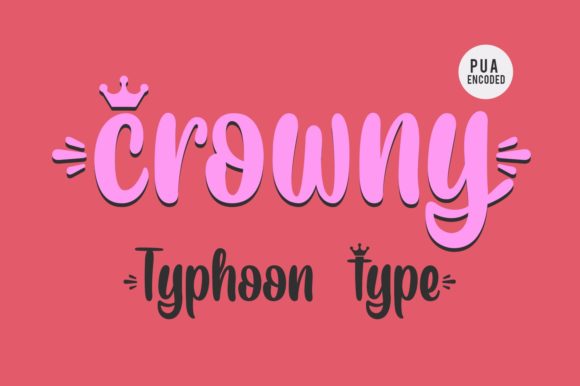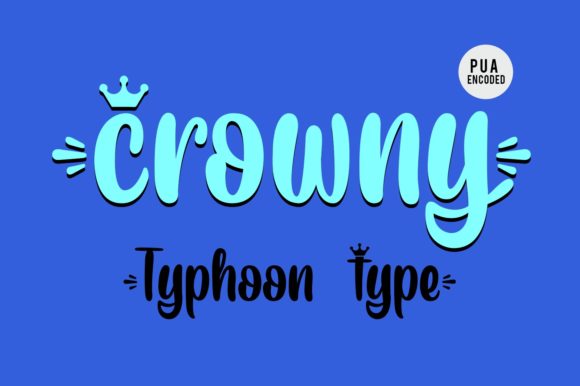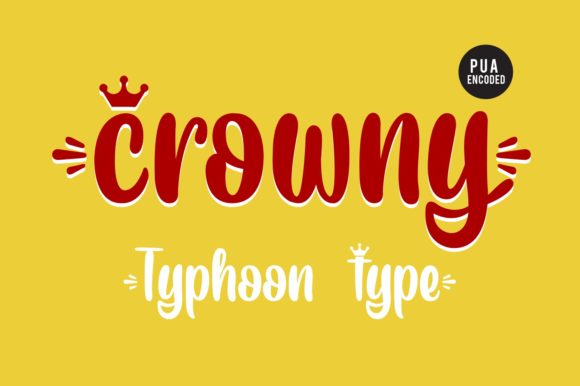
Crowny Font: Elevate Your Designs with a Fun and Versatile Display Font
Are you tired of using the same old fonts in your designs? Look no further than Crowny Font, a fun and versatile display font that’s perfect for adding a touch of personality to your projects. Whether you’re a designer, crafter, or DIY enthusiast, Crowny Font is a great addition to your font library.
What is Crowny Font?
Crowny Font is a modern display font that’s designed to make your designs stand out. Its unique and playful style makes it perfect for a wide range of applications, from logos and advertising to product packaging, clothing, social media, and greeting cards.
One of the best things about Crowny Font is its versatility. It’s a highly decorative font that can add a touch of whimsy and fun to any design. Whether you’re creating a bold and eye-catching logo or a beautiful and intricate greeting card, Crowny Font is the perfect choice.
Key Features of Crowny Font
- PUA Encoded: Crowny Font is PUA (Private Use Area) encoded, which means you can access all of the glyphs and swashes with ease. This makes it easy to customize your designs and add your own personal touch.
- Fun and Versatile: Crowny Font is a highly decorative font that’s perfect for adding a touch of personality to your designs. Its unique style makes it perfect for a wide range of applications.
Uses for Crowny Font
Crowny Font is a versatile font that can be used for a wide range of applications, including:
- Logos: Crowny Font is perfect for creating unique and eye-catching logos that will help your brand stand out.
- Advertising: Use Crowny Font to create bold and attention-grabbing ads that will get your message noticed.
- Product Packaging: Add a touch of personality to your product packaging with Crowny Font.
- Clothing: Use Crowny Font to create custom t-shirts, hoodies, and other clothing items that will make you stand out.
- Social Media: Use Crowny Font to create eye-catching social media graphics that will help you connect with your audience.
- Greeting Cards: Create beautiful and unique greeting cards with Crowny Font.
Tips for Using Crowny Font
Here are a few tips for getting the most out of Crowny Font:
- Experiment with Different Sizes: Crowny Font looks great in a variety of sizes, from small and delicate to large and bold. Experiment with different sizes to find the one that works best for your design.
- Combine with Other Fonts: Crowny Font pairs well with a variety of other fonts. Try combining it with a simple sans-serif font for a bold and eye-catching look.
- Use the Swashes: Crowny Font comes with a range of swashes and glyphs that can add an extra touch of personality to your designs. Don’t be afraid to experiment with these to find the perfect look.
| Font Name | Crowny Font |
| Author | Typhoon Type™ – Suthi Srisopha |
Crowny Font is a fun and versatile display font that’s perfect for designers, crafters, and DIY enthusiasts. Its unique and playful style makes it perfect for a wide range of applications, from logos and advertising to product packaging, clothing, social media, and greeting cards. With its PUA encoding and easy-to-use design, Crowny Font is a great addition to any font library.